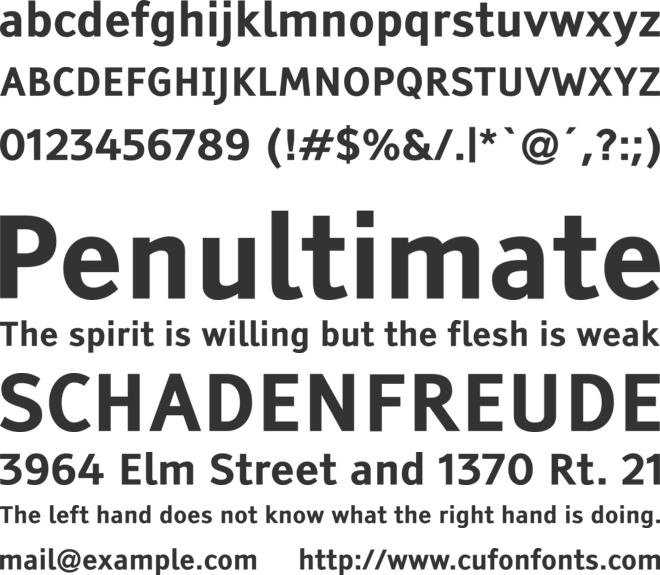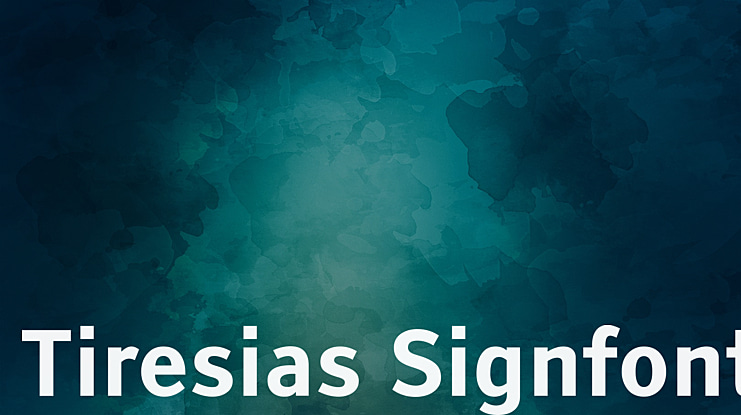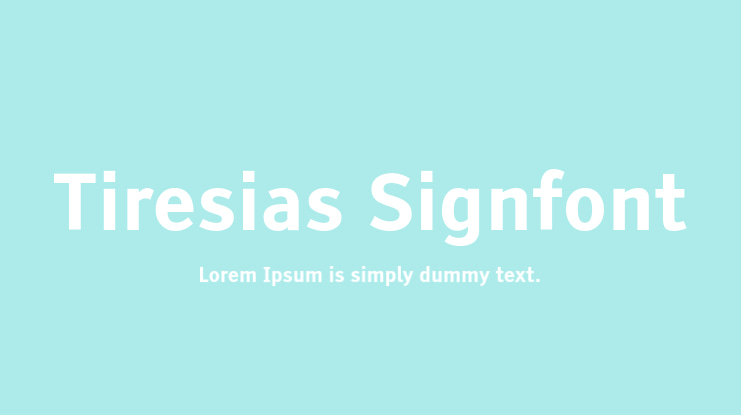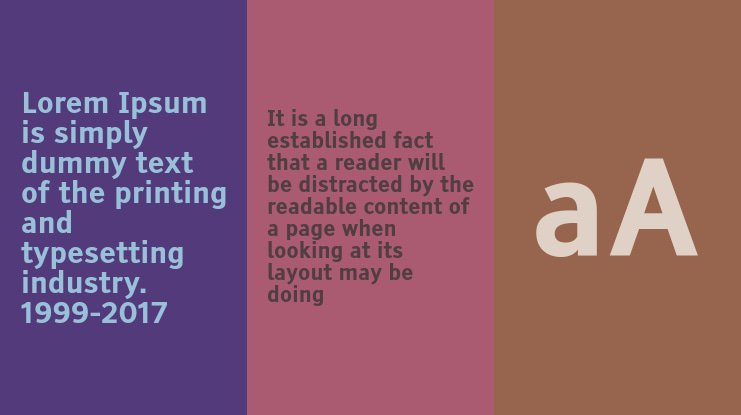
Tiresias Signfont Font Family
Tiresias is a family of realist sans-serif typefaces that were designed for best legibility by people with impaired vision at the Scientific Research Unit of Royal National Institute of the Blind in London
Tiresias Signfont – a more open spacing for use on signs